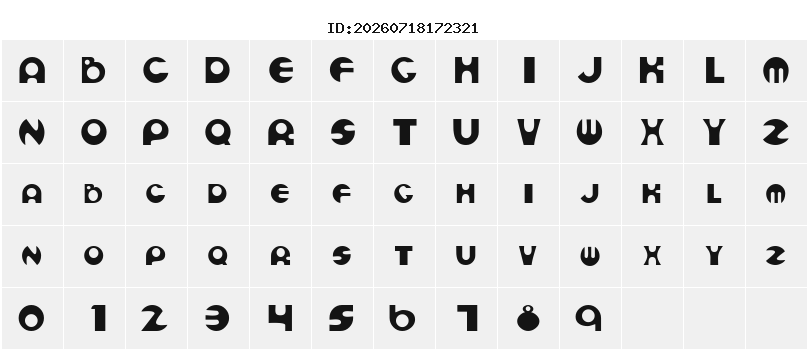
• Font Name: CurvetteDisplay
CurvetteDisplay.ttf is a modern, elegant sans-serif font designed for ultimate readability and visual harmony. Perfect for branding, headlines, web design, and print materials.